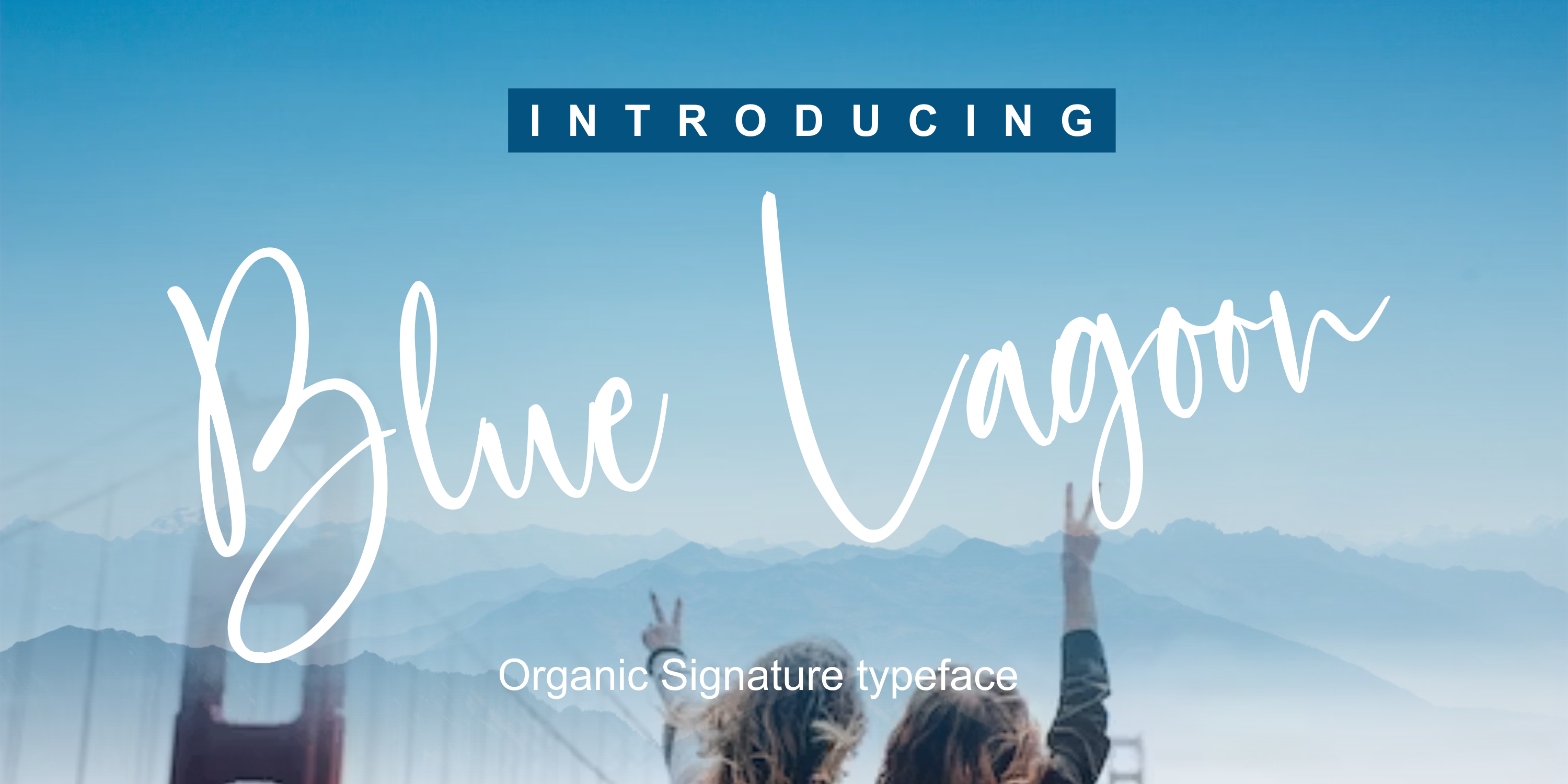
Blue Lagoon Font is perfect for tropical resort branding, ocean-themed restaurants, aquatic spa marketing, beach vacation promotions, water sports equipment, marine conservation campaigns, coastal boutique signage, swimming pool services, yacht club materials, and serene projects that celebrate the tranquil beauty and refreshing escape of crystal-clear waters with peaceful sophistication.
What makes Blue Lagoon Font so exciting is its sublime capture of water's fluid elegance through flowing letterforms that embody the serene tranquility and pristine beauty of tropical lagoons. This typeface perfectly reflects the calming essence of clear blue waters, featuring gentle curves and smooth transitions that suggest gentle waves and peaceful currents while maintaining excellent readability for contemporary hospitality and wellness applications that promote relaxation and escape.
Blue Lagoon Font family includes multiple aquatic variations: Regular, Bold, Light, Flow, Ripple, Deep, Crystal, and Serene versions. Each style maintains the font's inherent water-inspired tranquility while offering different levels of fluidity and oceanic appeal, enabling designers to create authentic aquatic aesthetics that transport audiences to peaceful tropical destinations and refreshing water experiences.
The tranquil appeal of Blue Lagoon Font Free Download makes it exceptionally valuable for hospitality and wellness industries promoting water-based relaxation. This font successfully communicates serenity and natural beauty, making it ideal for brands that want to evoke the peaceful escape of tropical waters and aquatic environments. Its flowing character works beautifully across both digital spa platforms and luxury resort materials, while its distinctive water-inspired design creates immediate emotional connection with audiences seeking tranquil vacation experiences and peaceful retreat from everyday stress.